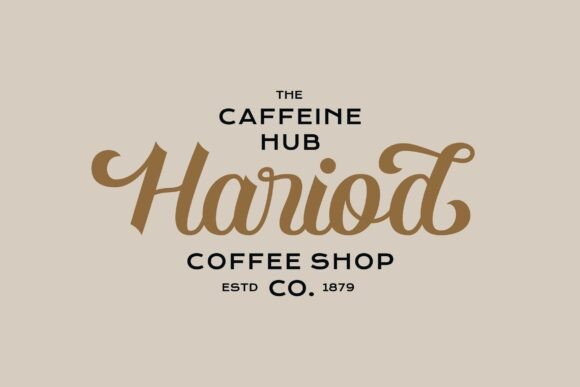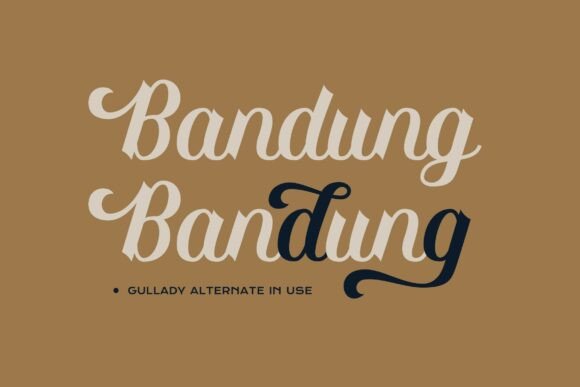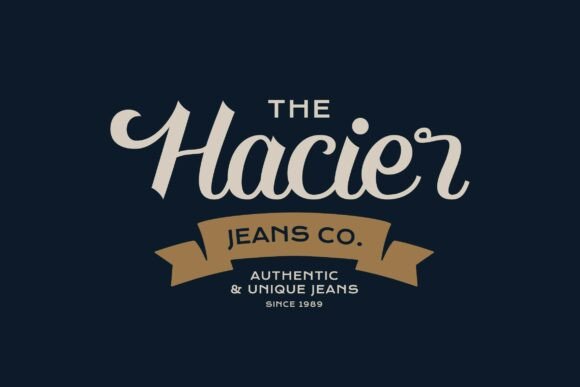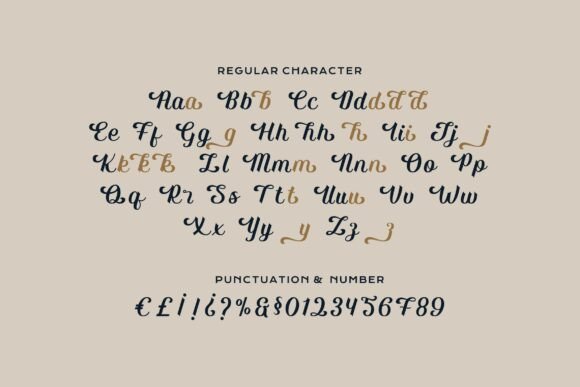
Step Back in Time with Gullady: The Vintage Script Font that Embodies Mid-Century American Craftsmanship
Imagine a font that transports you back to a bygone era, evoking memories of classic storefronts, local diner menus, and heritage brand logos. Welcome to Gullady, a vintage script font that captures the heart and soul of mid-century American craftsmanship. This stunning typeface is more than just a collection of letters – it’s a piece of nostalgia that echoes the bold, hand-painted lettering of a bygone era.
The Inspiration Behind Gullady
Gullady is inspired by the iconic lettering that adorned storefronts, menus, and logos across America during the mid-20th century. The font’s creator sought to capture the essence of this era’s craftsmanship, when hand-painted signs and lettering were a staple of small businesses and local brands. The result is a font that exudes warmth, character, and a deep sense of nostalgia.
Design Characteristics of Gullady
Gullady is crafted with thick, fluid strokes and graceful curves, giving it a powerful yet friendly presence. The letters are designed to connect smoothly, creating iconic emblems that are both visually striking and cohesive. The font’s smooth connections and flowing lines evoke a sense of movement and energy, perfect for creating eye-catching logos, posters, and branding materials.
Perfect for Heritage Branding and Retro-Themed Designs
Gullady is the perfect choice for designers and crafters looking to create heritage-inspired branding, logos, and designs. Its vintage charm and nostalgic appeal make it an ideal fit for:
• Heritage branding and rebranding projects
• Logos for cafes, barbershops, and craft breweries
• Apparel companies and fashion brands
• Retro-themed posters, flyers, and brochures
• Any design project that requires a stamp of authenticity and timeless appeal
What Sets Gullady Apart
Gullady provides everything you need to build a cohesive vintage aesthetic. The font includes a range of features and benefits, including:
• Thick, fluid strokes and smooth connections
• Powerful yet friendly presence
• Iconic emblems and logo designs
• Perfect for heritage branding and retro-themed designs
• Timeless appeal and authenticity
Tips for Using Gullady in Your Designs
To get the most out of Gullady, here are a few tips for using the font in your designs:
• Pair Gullady with bold colors and contrasting backgrounds to create eye-catching designs
• Experiment with different font sizes and styles to add visual interest and hierarchy
• Use Gullady to create iconic emblems and logos that tell a story
• Combine Gullady with other vintage-inspired fonts and graphics to create a cohesive look
Gullady is more than just a font – it’s a time machine in typeface form. With its vintage charm, nostalgic appeal, and timeless design, Gullady is the perfect choice for designers and crafters looking to create heritage-inspired branding, logos, and designs. Whether you’re working on a retro-themed poster, a heritage rebranding project, or a logo for a local business, Gullady provides everything you need to create a cohesive and authentic vintage aesthetic. So why wait? Step back in time with Gullady and bring a touch of mid-century American craftsmanship to your designs.